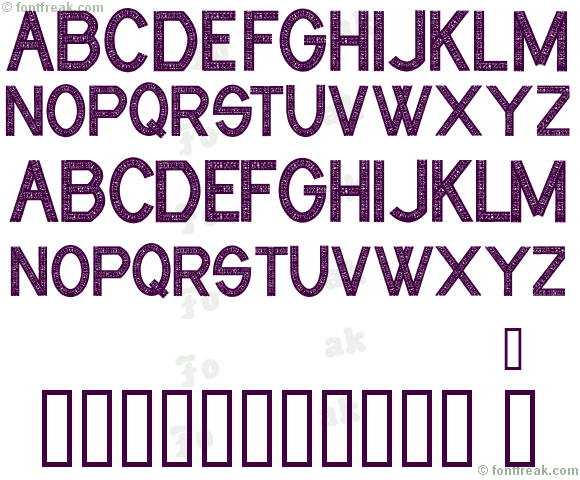
CF Industrial Fabrics Regular
About CF Industrial Fabrics Regular
CF Industrial Fabrics Regular by Cloutierfontes is a striking sans-serif font that captures the essence of contemporary design with its bold and industrial aesthetic. This typeface features a consistent stroke weight, giving it a sturdy and robust appearance that is both eye-catching and modern. The clean lines and minimalistic style provide a sense of clarity and precision, making it an ideal choice for a variety of design projects. The font's spacing is well-balanced, ensuring legibility while maintaining a cohesive look throughout any text.
This versatile font is well-suited for specific use cases such as restaurant menus, where its boldness can draw attention to dish names and specials. It also works beautifully for branding materials, lending a modern edge to logos and business cards. Additionally, CF Industrial Fabrics Regular is perfect for movie posters, where its strong visual presence can effectively convey themes and emotions. Graphic designers will find this font particularly appealing for creating promotional materials, ensuring that the text stands out in a crowded marketplace. Small business owners and content creators can also leverage this font to enhance their online presence, making their websites and social media graphics more engaging.